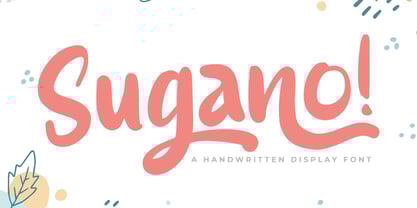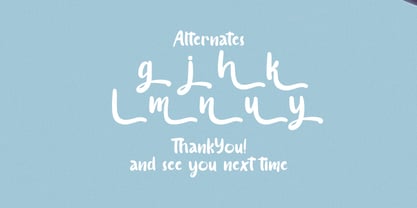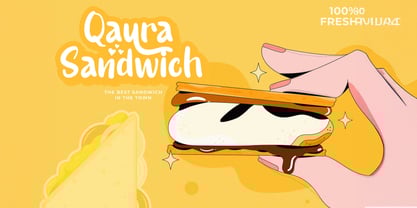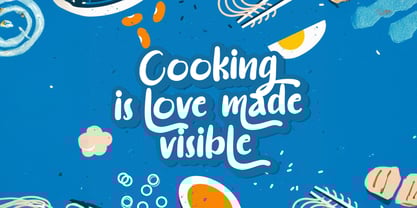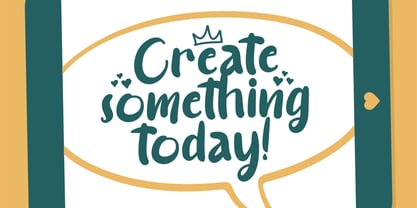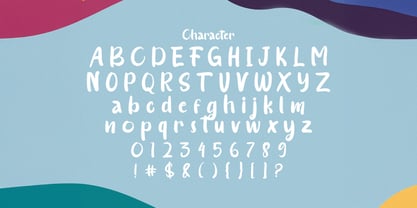
The Sugano Font Family was designed by Virgiawan Listanto and published by Stringlabs Creative Studio. Sugano contains 1 styles. More about this family
Sugano is a modern handwritten font that blends simplicity with subtle elegance. Its clean strokes and flowing, casual style bring a natural handwritten feel that’s both approachable and stylish perfect for adding personality without sacrificing readability.
Designers: Virgiawan Listanto
Foundry: Stringlabs Creative Studio
Sugano